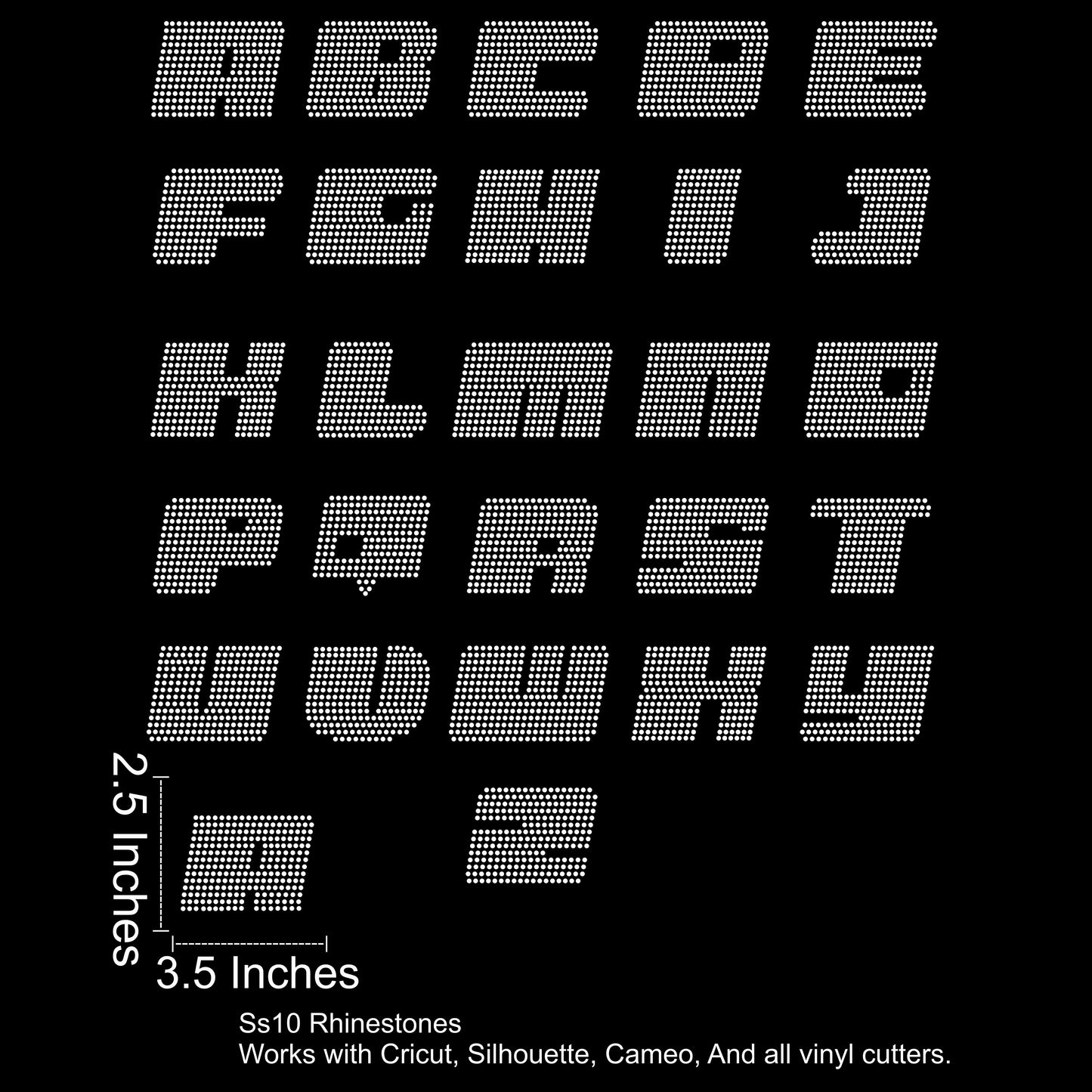
Bubble Y2K Font Rhinestone SVG File 2.5 Inches Tall
Bubble Y2K – Rhinestone Font SVG (SS10 Size Compatible)
Bring that bold, bubbly early-2000s vibe to your designs with Bubble Y2K, a chunky rhinestone font perfect for standout custom pieces. Each letter is perfectly spaced and sized for SS10 rhinestones, making it press-ready with no resizing needed.
• Letters A–Z
• Approx. 2.5 inches tall
• Designed for SS10 hotfix rhinestones